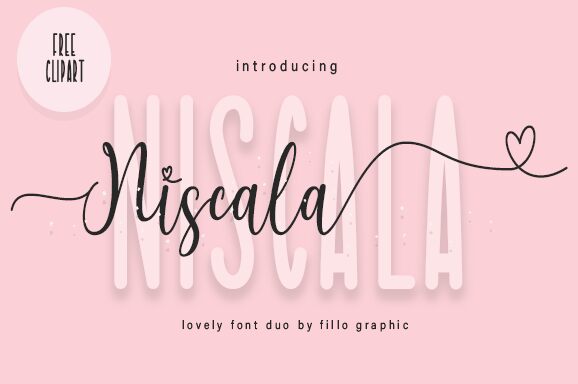
Niscala Display
Niscala Display, designed by Fillo Graphic, is a stunningly sleek and modern display font perfect for projects that require a touch of sophistication. Its semi-light weight and extra-condensed width make it ideal for headlines, posters, logos, and branding materials. The elegant curves and sharp edges of Niscala Display create an eye-catching visual impact that will grab the attention of any viewer. This versatile font can be used in both print and digital media to add a touch of professionalism to your designs. Make your project stand out with Niscala Display - the epitome of grace and style.